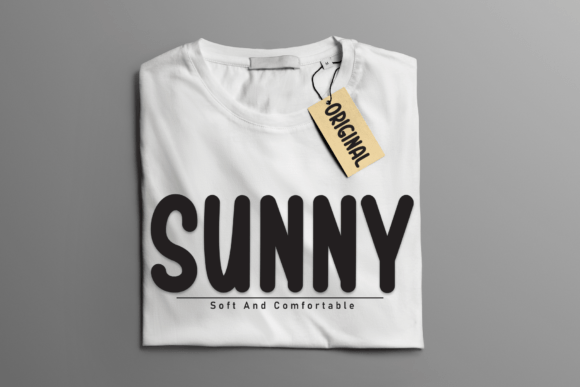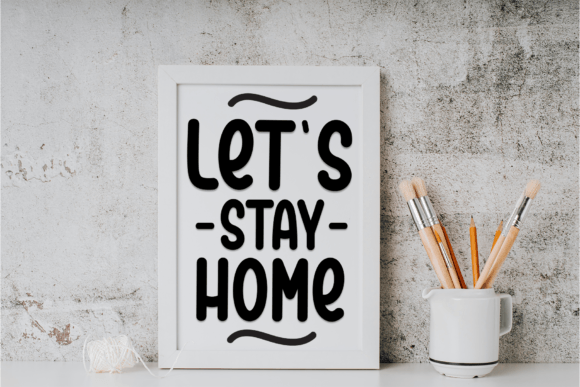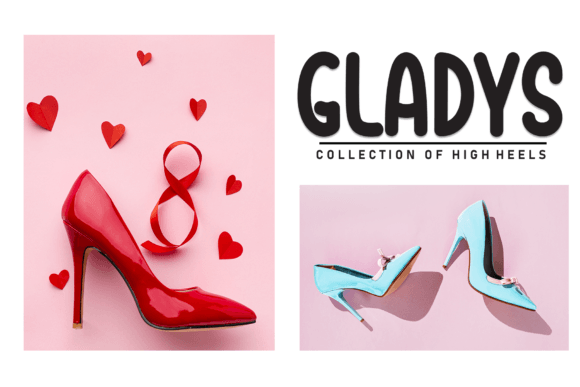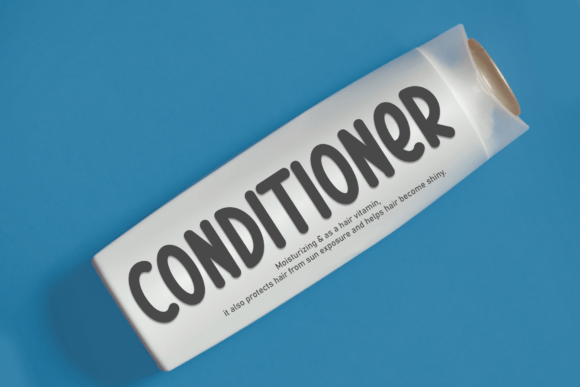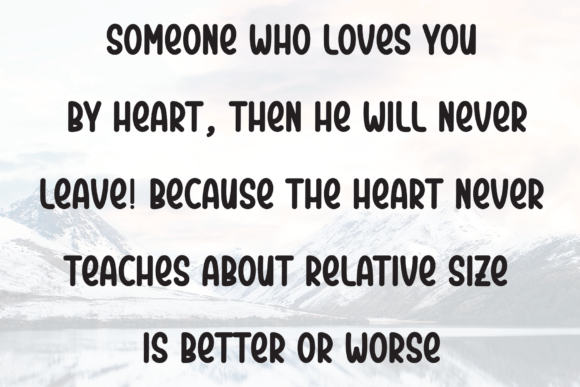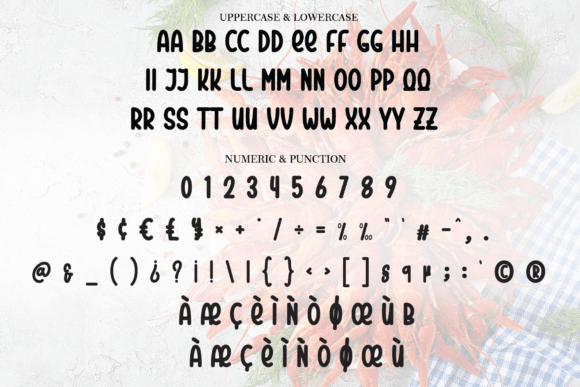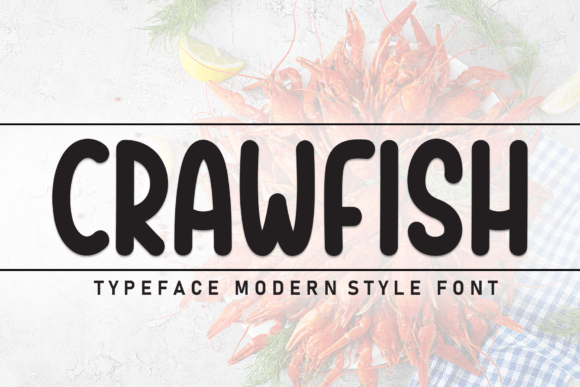
Crawfish Font: The Sweet and Friendly Handwritten Font for Your Creative Projects
Are you a designer or crafter looking for a font that can add a touch of sweetness and friendliness to your creative projects? Look no further than the Crawfish font! This beautiful handwritten font is perfect for a variety of design applications, from wedding invitations and cards to posters, flyers, and more.
What is Crawfish Font?
Crawfish is a sweet and friendly handwritten font that is sure to capture the hearts of your audience. With its cute and fun design, this font is ideal for anyone looking to add a lovely touch to their designs. Whether you’re creating a wedding invitation, a greeting card, or a social media graphic, Crawfish font is the perfect choice.
Key Features of Crawfish Font
So, what makes Crawfish font so special? Here are some of its key features:
• Sweet and Friendly Design: Crawfish font has a sweet and friendly design that is sure to appeal to a wide range of audiences.
• Handwritten Style: This font has a beautiful handwritten style that gives it a personal and unique touch.
• Cute and Fun: Crawfish font is cute and fun, making it perfect for designs that require a playful touch.
• Highly Versatile: This font is highly versatile and can be used for a variety of design applications, from wedding invitations to posters and flyers.
Use Cases for Crawfish Font
Crawfish font is a highly versatile font that can be used for a wide range of design applications. Here are some of the most popular use cases for this font:
• Wedding Invitations: Crawfish font is perfect for wedding invitations, as it adds a touch of sweetness and romance to the design.
• Greeting Cards: This font is also great for greeting cards, as it conveys a sense of friendliness and approachability.
• Posters and Flyers: Crawfish font can be used to create eye-catching posters and flyers that are sure to grab the attention of your audience.
• Social Media Graphics: This font is also perfect for social media graphics, as it adds a personal and unique touch to your designs.
Why Choose Crawfish Font?
So, why should you choose Crawfish font for your design projects? Here are some reasons:
• Unique Design: Crawfish font has a unique design that sets it apart from other fonts.
• Easy to Read: This font is easy to read, making it perfect for designs that require a clear and concise message.
• Highly Versatile: Crawfish font is highly versatile and can be used for a wide range of design applications.
• Great for Branding: This font is great for branding, as it can help you create a consistent and recognizable visual identity.
Tips for Using Crawfish Font
Here are some tips for using Crawfish font in your design projects:
• Use it for Headings and Titles: Crawfish font is perfect for headings and titles, as it adds a touch of sweetness and friendliness to your designs.
• Pair it with Other Fonts: This font can be paired with other fonts to create a unique and visually appealing design.
• Experiment with Colors: Crawfish font can be used with a variety of colors to create a design that matches your brand’s visual identity.
In conclusion, Crawfish font is a sweet and friendly handwritten font that is perfect for a variety of design applications. With its cute and fun design, this font is ideal for wedding invitations, cards, posters, flyers, and more. Its highly versatile design makes it a great choice for designers and crafters looking to add a lovely touch to their designs. So, if you’re looking for a font that can help you create beautiful and eye-catching designs, look no further than Crawfish font!